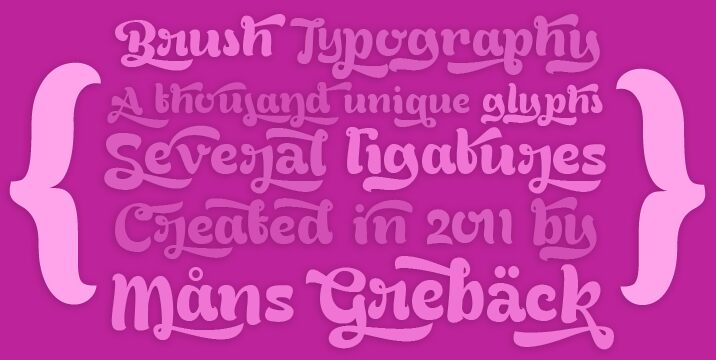
Bready Clockwise by Måns Grebäck is a free groovy display font with oversized curves and a distinctly psychedelic silhouette. Its dense, swelling strokes shift sharply in width, and curled endings, tucked loops, and long sweeping tails make the lettering feel animated rather than orderly.
For confectionery packaging, the rounded forms suggest icing and soft candy, while music posters draw on their 1960s counterculture flavor. Festival graphics and children's entertainment also benefit from lettering that has the weight of an illustration. In logos, the looping extensions can turn a name into a compact emblem instead of ordinary type.